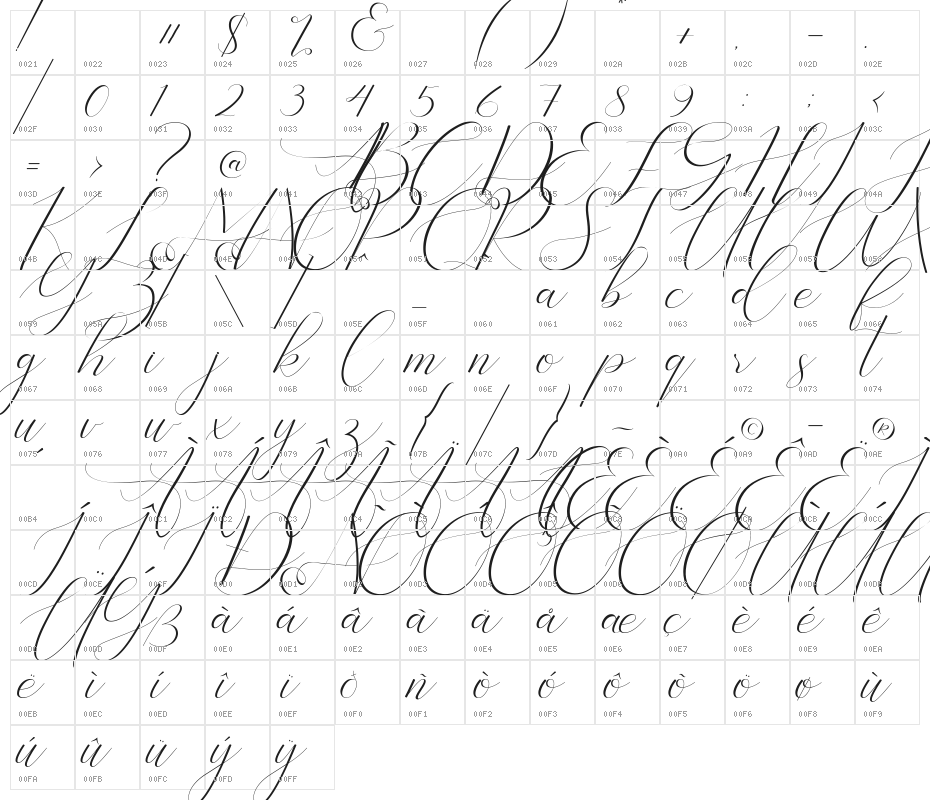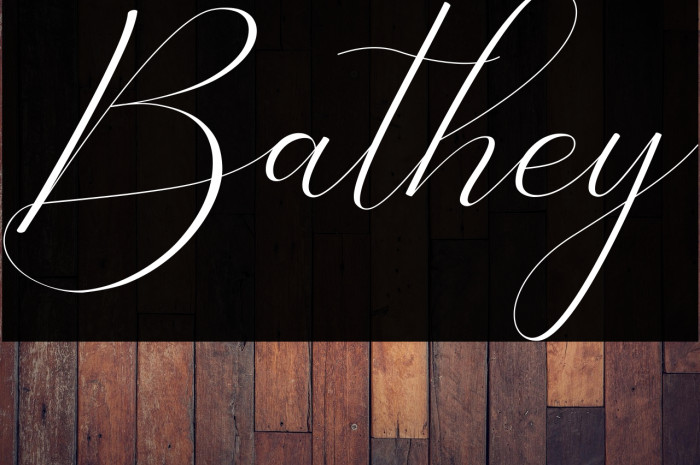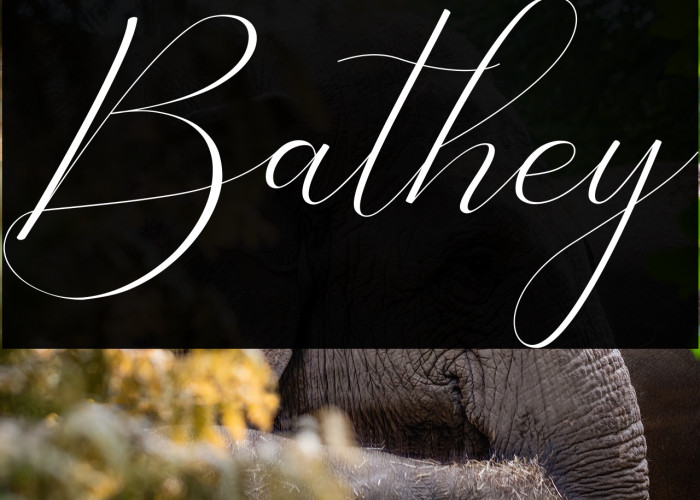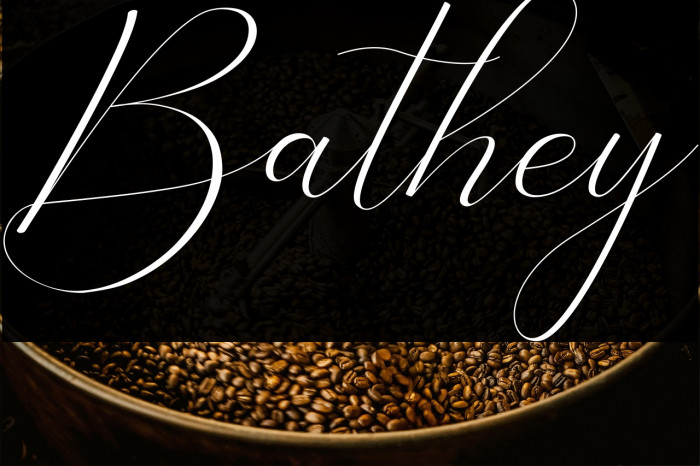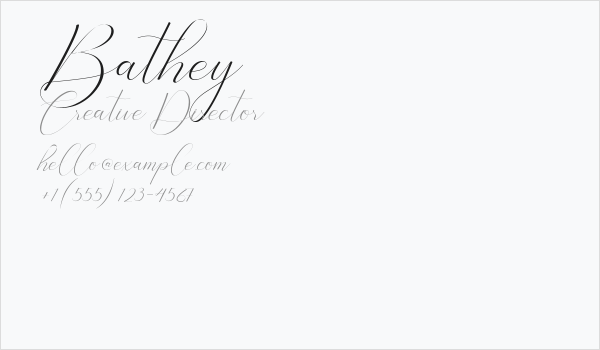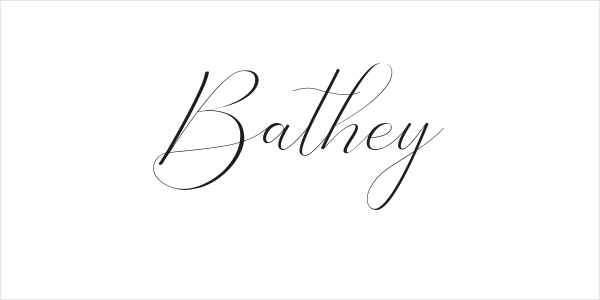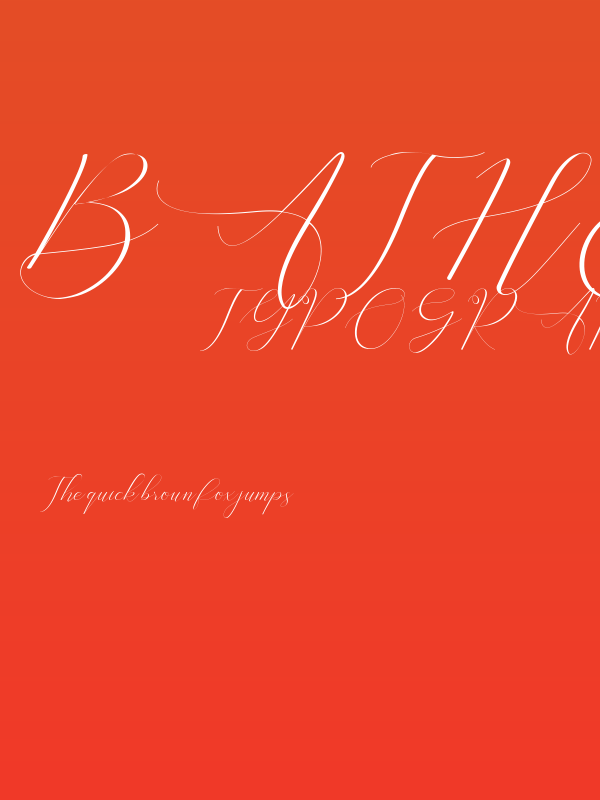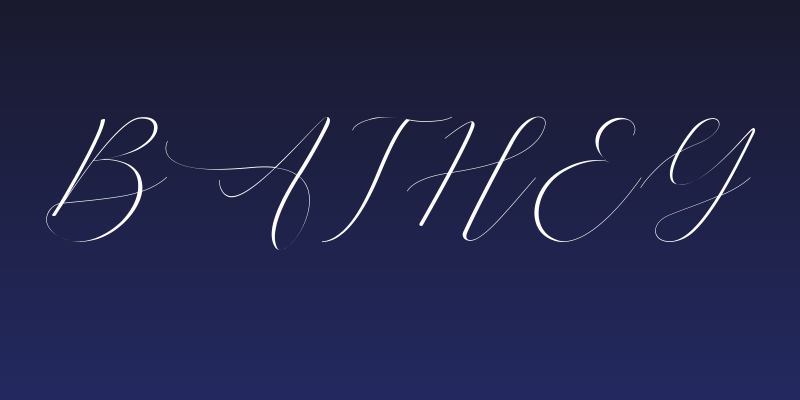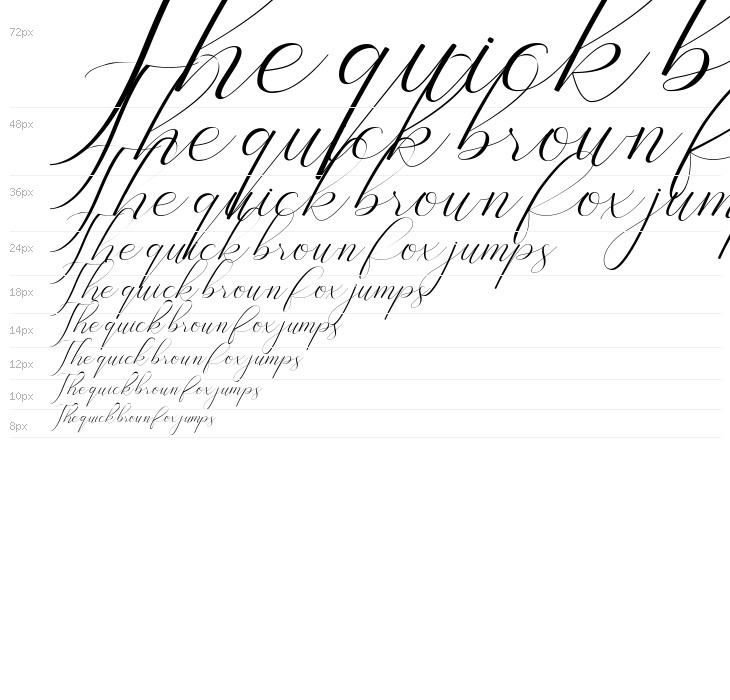
Bathey Font
Bathey Description
This elegant script font features flowing, interconnected letters with a refined and sophisticated appearance. The uppercase letters are characterized by their tall, slender forms and graceful curves, while the lowercase letters maintain a consistent fluidity with delicate loops and swashes. The numerals are stylishly integrated, matching the overall aesthetic with their smooth, sweeping lines. Special characters are thoughtfully designed, adding to the font's versatility. The thin strokes and high contrast between thick and thin lines enhance its decorative appeal, making it ideal for formal and luxurious designs.
| Overall Style | Elegant |
| Use Case | Logos, Invitations, Decorative headings |
| Proposed Projects | Ideal for wedding invitations, luxury branding, elegant packaging, and formal event materials. |